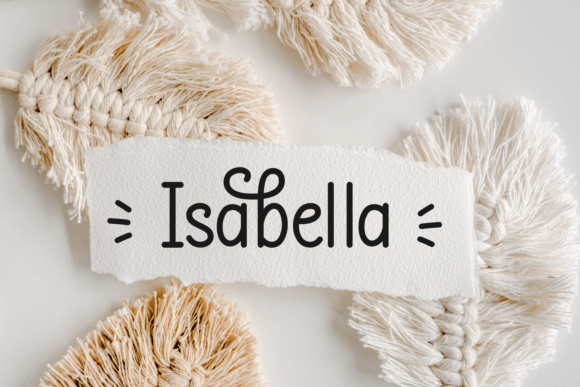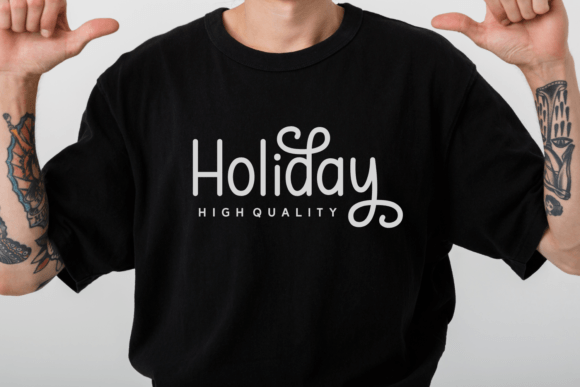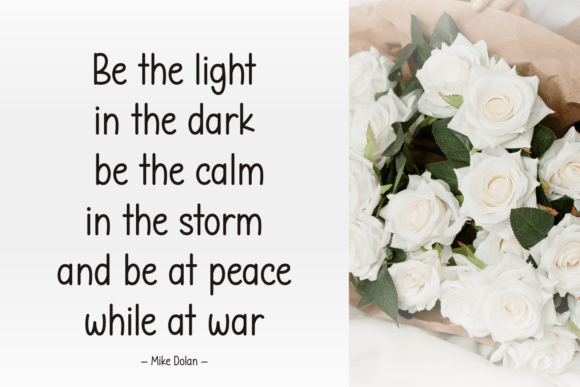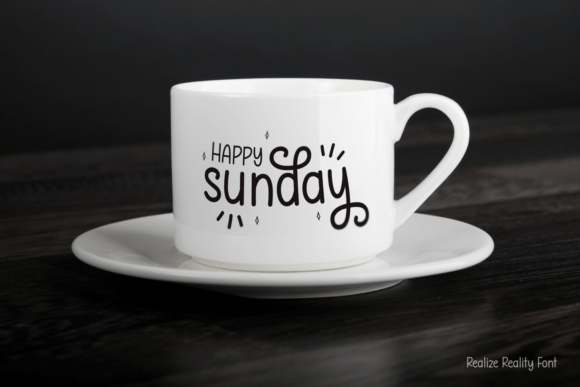
Introduction to Realize Reality Font
Introduce ‘Realize Reality Font’, a truly unique handwritten font that channels elegance with a contemporary appeal.
This lettering offers a blend of flawless simplicity and vintage styling that is perfect for your logo or vector designing needs Engage your audience with the beautiful lines that wave a tale of romance and affection, qualifying ‘Realize Reality Font’ as a top-choice for Valentine’s Day projects.